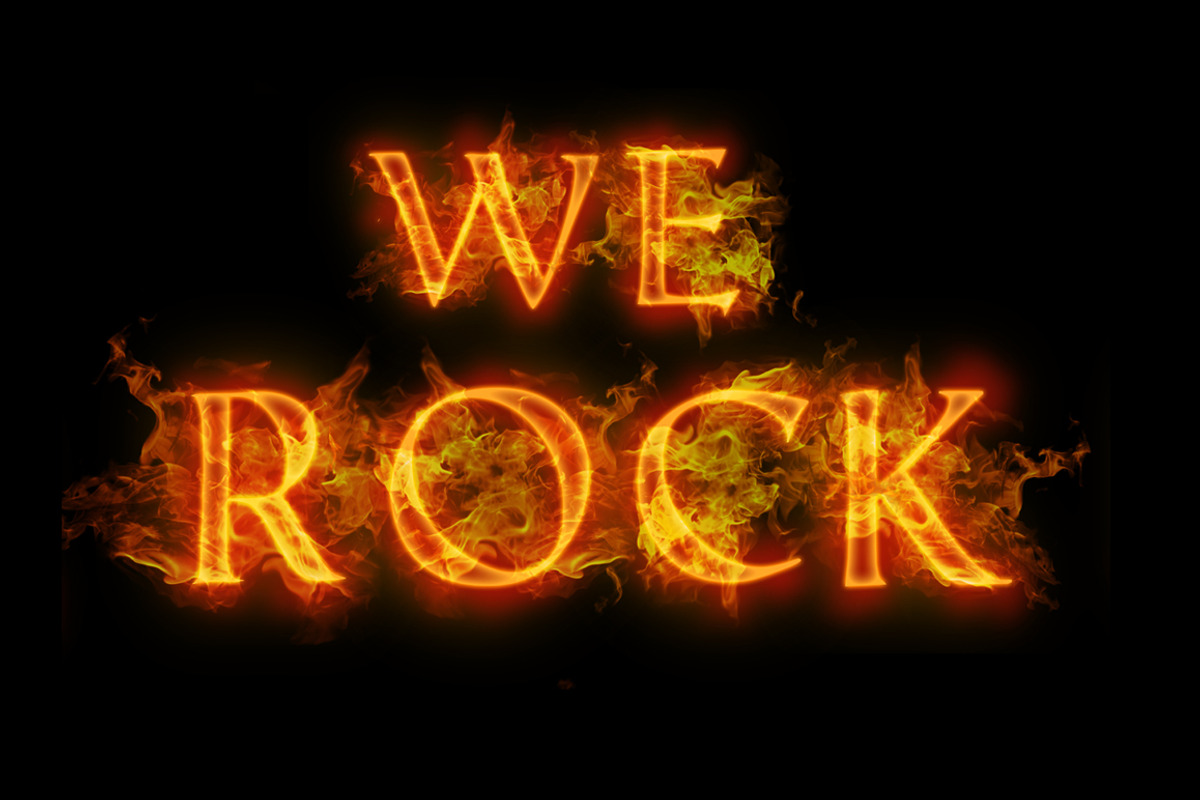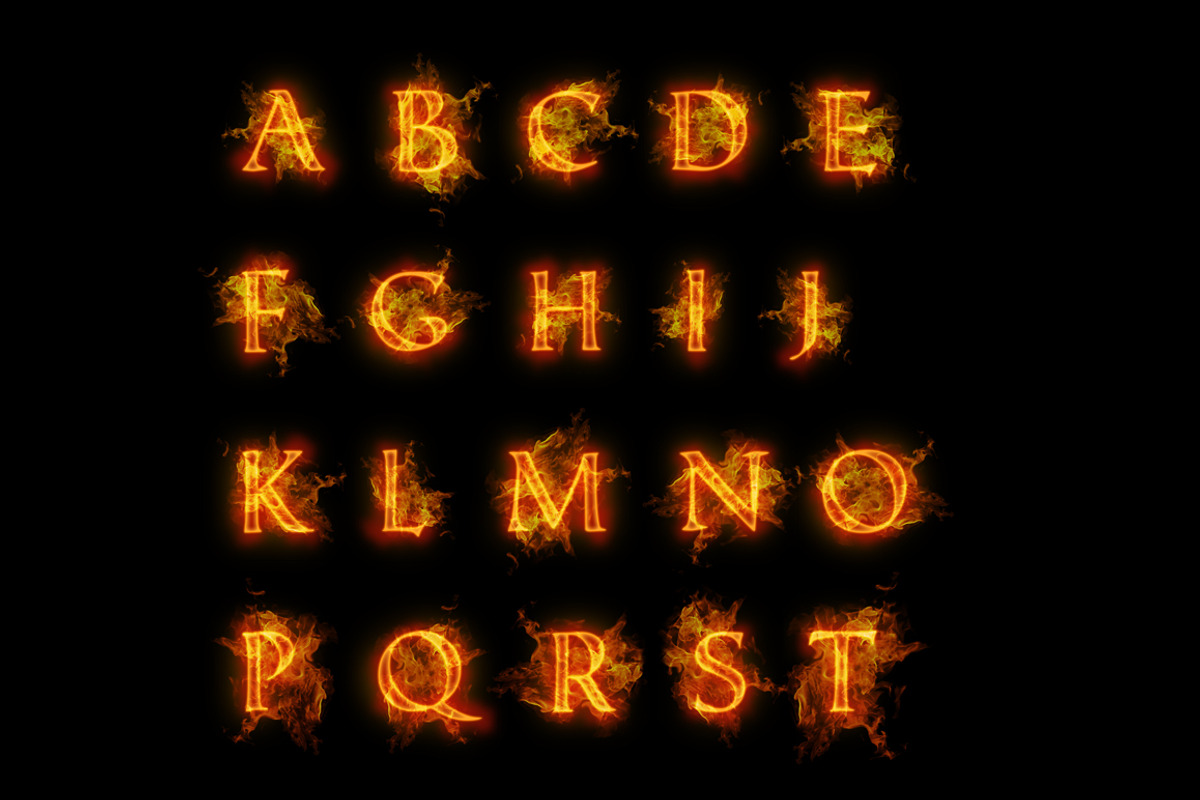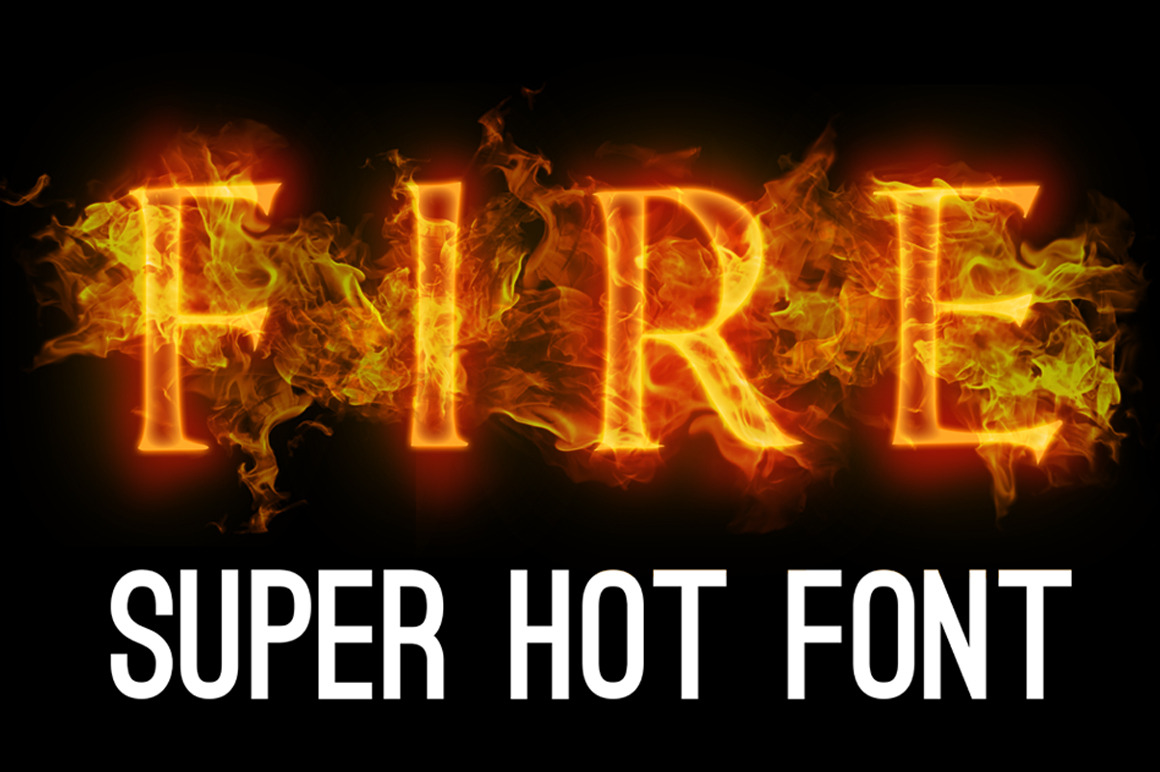
Fire font Hot font Flame font Super hot font - Graphic font clipart Clip-art graphic font symbols
Create your SUPER HOT POSTERS just in minutes!
Just combine hot fire font symbols - and your poster is ready!